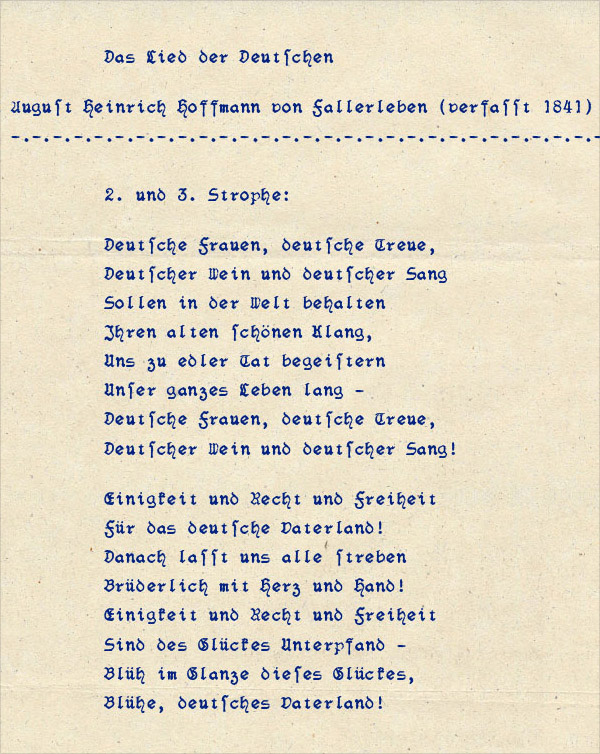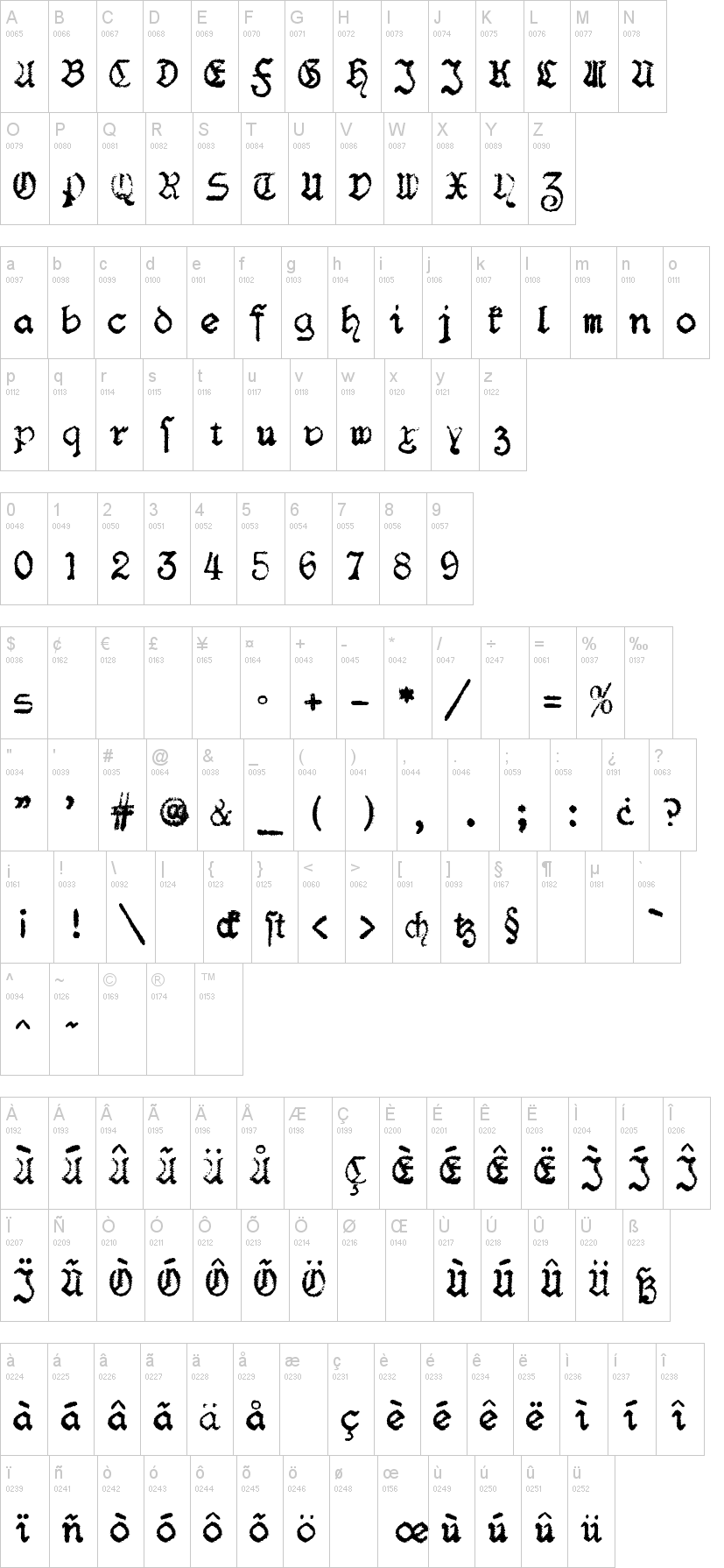
Note of the authorGerman 'Schwabacher Fraktur' Typewriter Font.
In Germany there was a high circulation of Black Letter fonts before WWII. Based on this fact Typewriters were also equipped with Black Letter fonts, monospaced. Not common typewriters, but special ones, you saw every now and then. Because of German Black Letter typefaces are always associated with Nazi Germany, typewriters with Black Letter monospaced fonts are practically lost today. To rescue the odd - due to the fact, that Black Letter fonts with their different wide characters are rather inapplicable - typeface of a monospaced Black Letter typewriter font we created a digital computer font.
Please note: In Black Letter typeface, there are two sorts of 's'. A 'long' version and a 'round' version (as at the end of 'Handgloves'). Please use the $ key for the round s.
In German typesetting, the round s must always be used at the end of a syllable or a word, otherwise the long s must be used.
Some keys are occupied from ligatures:
' } ' = > ligature st
' [ ' = > ligature ch
' ] ' = > ligature tz
' { ' = > ligature ck